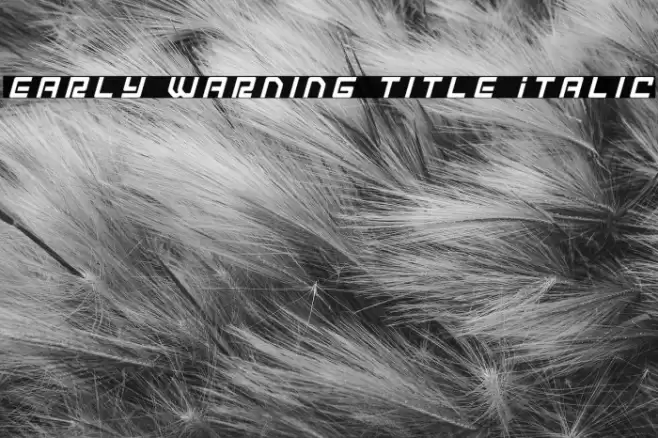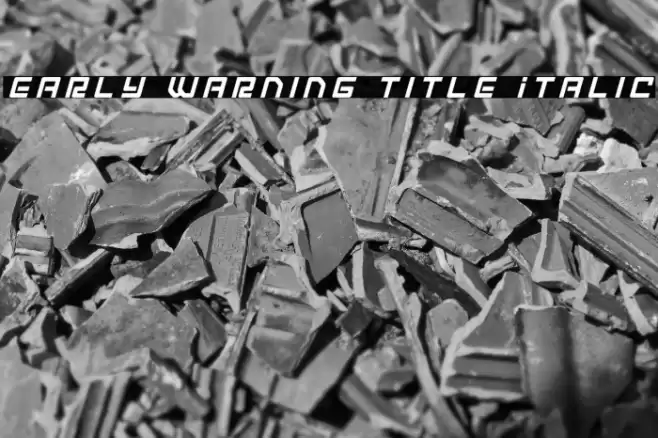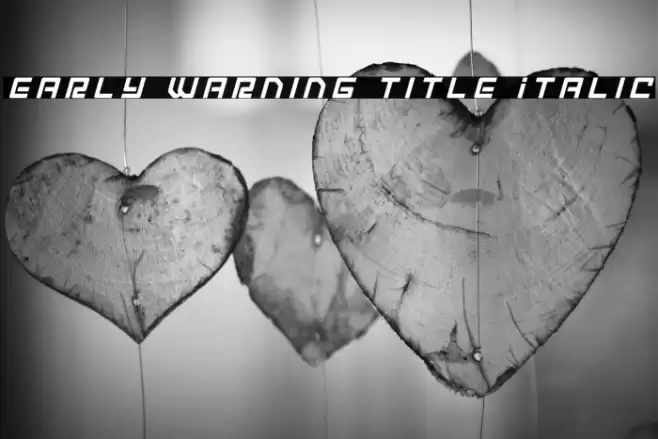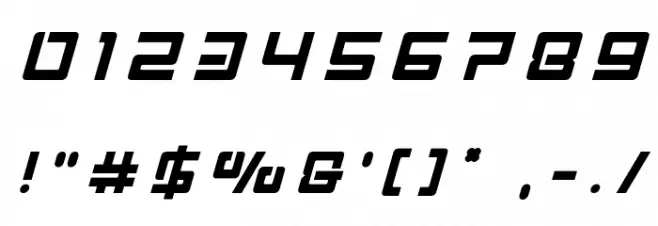
Early Warning Title Italic Font
Early Warning Title Italic Description
This font features a futuristic and angular design, characterized by its slanted and italicized letterforms. The geometric shapes and sharp edges give it a dynamic and modern appearance, making it suitable for attention-grabbing headlines and titles. The uppercase and lowercase letters maintain a consistent style, with a slight slant that adds a sense of motion. The numerals and special characters are designed to match the overall aesthetic, ensuring a cohesive look across all text elements. The font's unique style makes it ideal for projects that require a bold and contemporary feel.
A futuristic, italicized font with angular, geometric shapes from Uncategorized fonts.
- Proposed Projects: Ideal for sci-fi themed designs, tech branding, video game titles, and modern advertising.